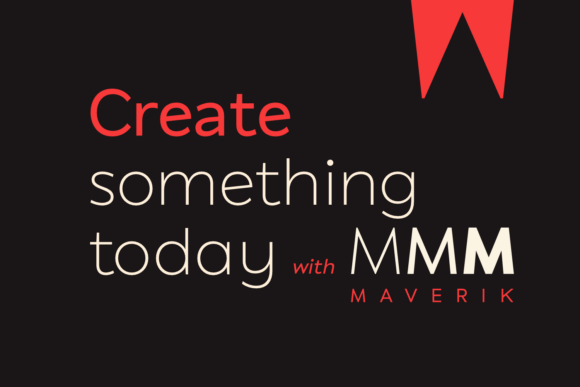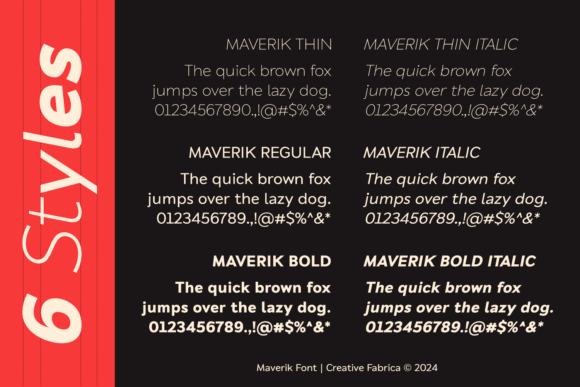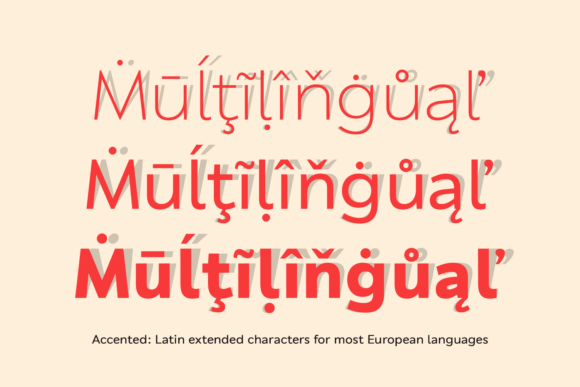
Introduction to Maverik Font
Maverik is a high-quality sans-serif typeface that stands as a sophisticated alternative to the renowned Gibson font.
Designed with meticulous attention to detail, Maverik features balanced proportions, clean lines, and a versatile structure that suits a wide range of applications Perfect for modern branding, sleek digital interfaces, and compelling editorial layouts, Maverik effortlessly blends style and functionality.
Key Features of Maverik Font
Why Choose Maverik Font?